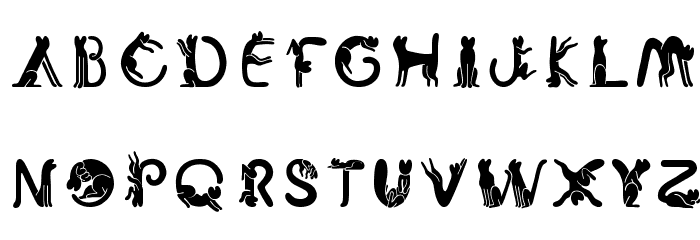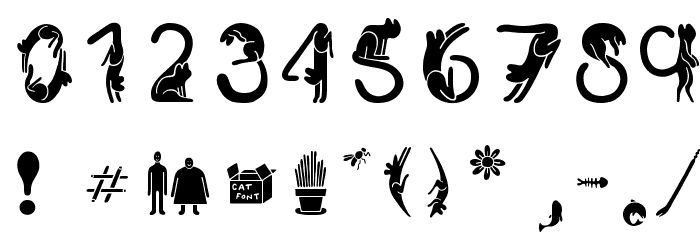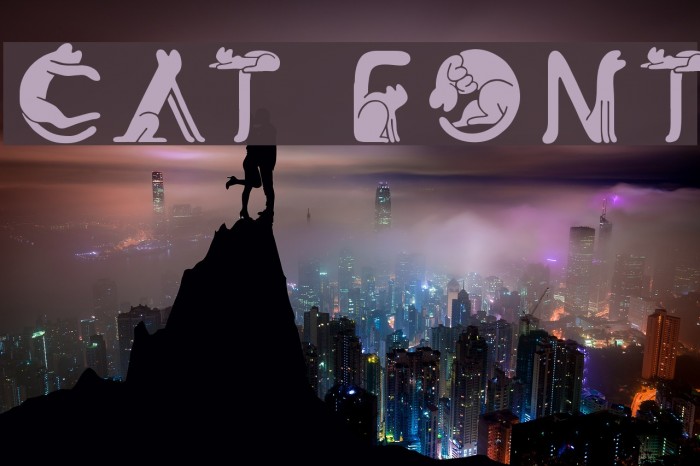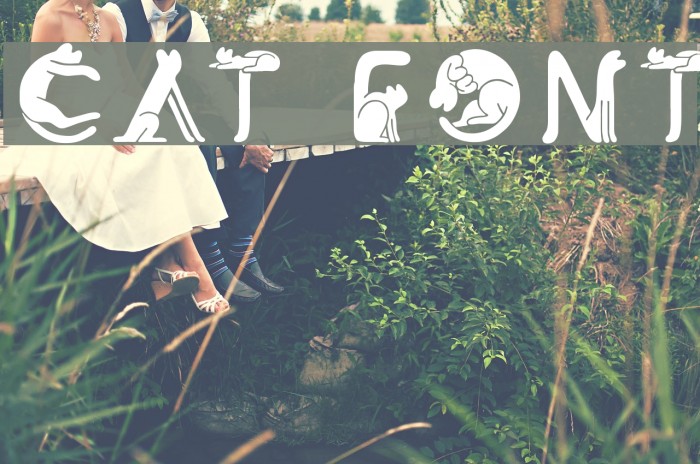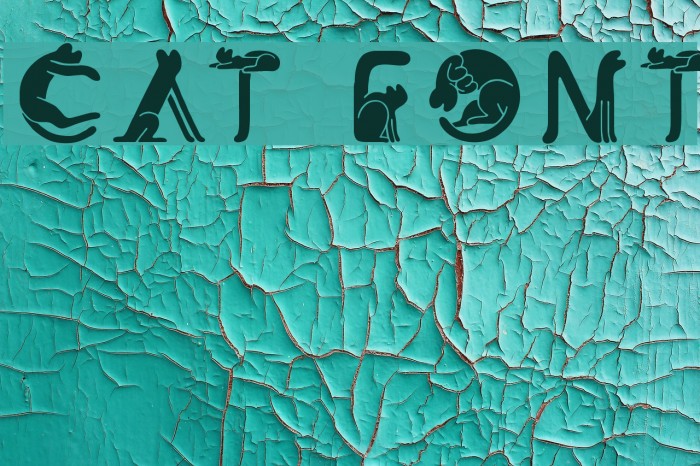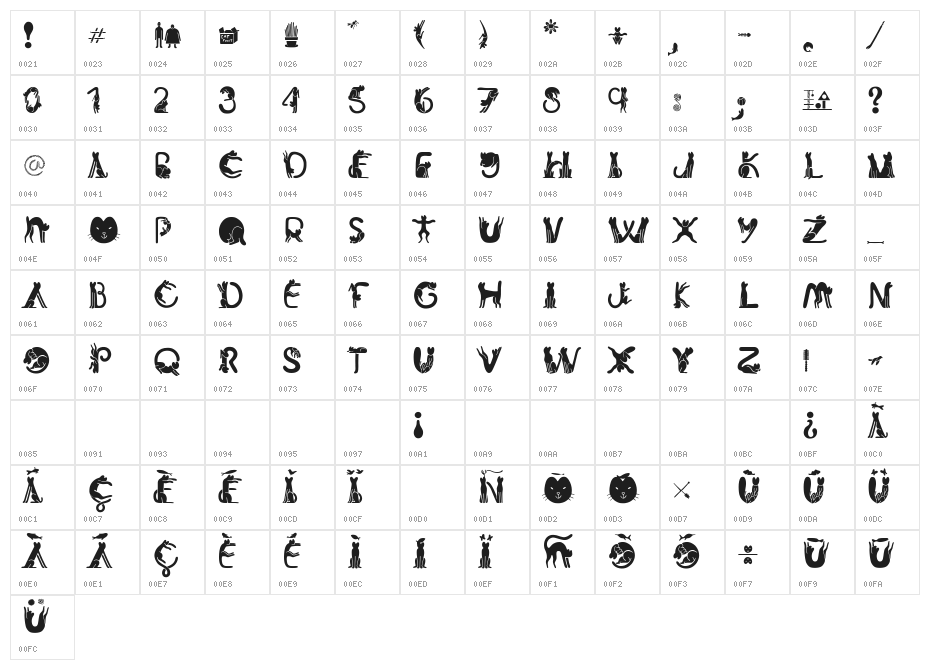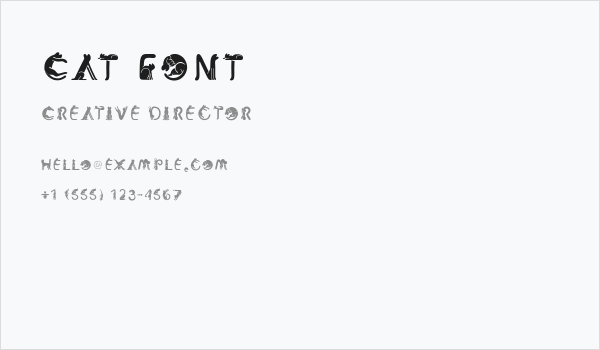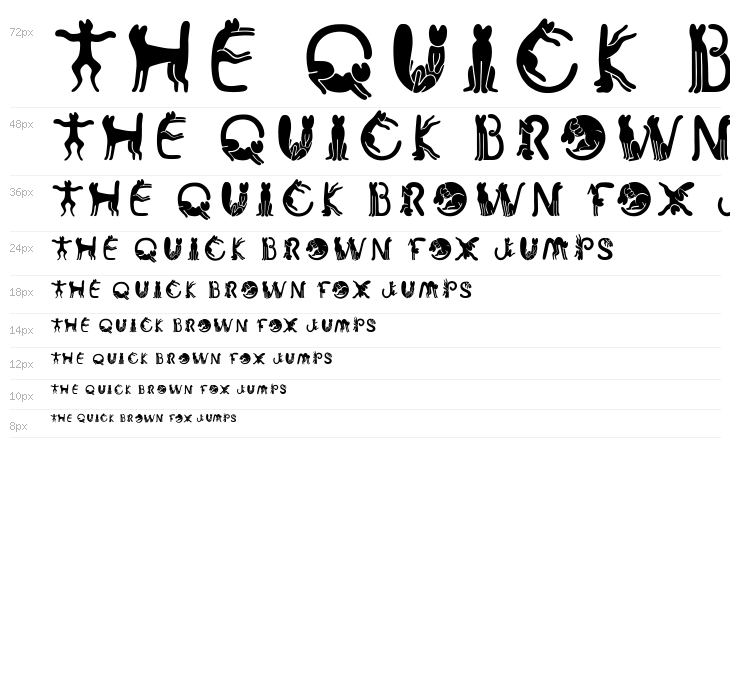
Cat Font Font
This playful and whimsical font incorporates cat silhouettes into each character, creating a unique and engaging visual experience. The letters are creatively designed with various cat poses, integrating tails, ears, and paws into the structure of each character. This font is perfect for projects that require a fun and lighthearted touch, appealing to cat lovers and those looking for a distinctive style. The numbers and special characters also follow this theme, maintaining consistency throughout the set. The overall design is bold and decorative, making it suitable for eye-catching headlines and creative displays.
A playful font featuring cat silhouettes integrated into each character.
- Proposed Projects: Ideal for children's books, pet-related branding, playful posters, and novelty items.